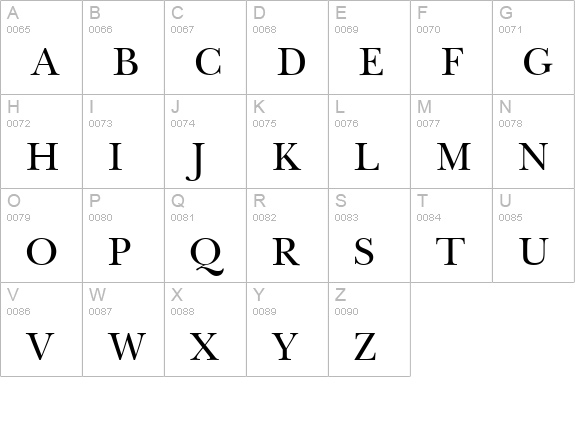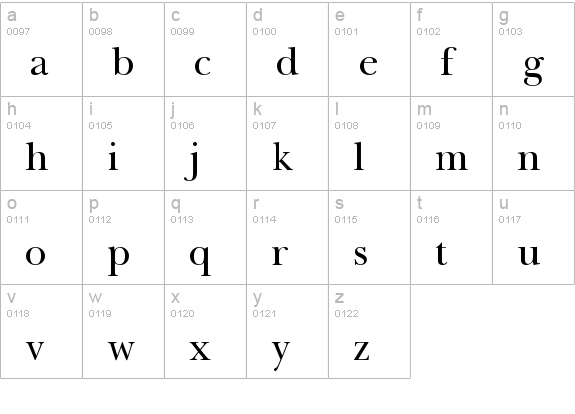
Baskerville Handcut Font Details
Baskerville Handcut font is a timeless typeface that combines classic elegance with a modern twist. Its clean lines and delicate curves give it a sophisticated and refined look that is perfect for a wide range of design projects. Whether you're creating a wedding invitation, a logo, or a magazine layout, Baskerville Handcut font will add a touch of sophistication to your work. What sets Baskerville Handcut font apart is its handcrafted feel, which adds a unique and personal touch to any design. The font's subtle imperfections and irregularities give it a warm and inviting quality that sets it apart from other typefaces. And the best part? Baskerville Handcut font is completely free to download at FontsMarket.com. That's right, you can add this elegant and versatile font to your collection without spending a dime. So why wait? Download Baskerville Handcut font today and elevate your designs to a whole new level of sophistication.